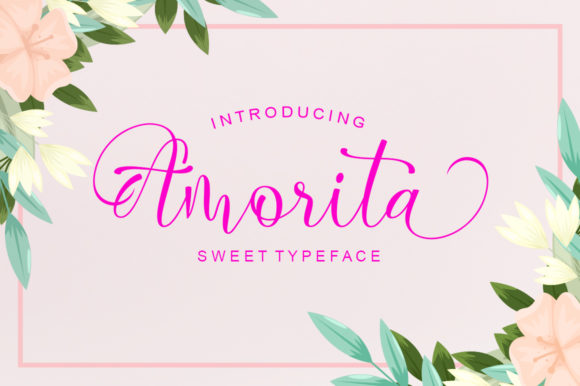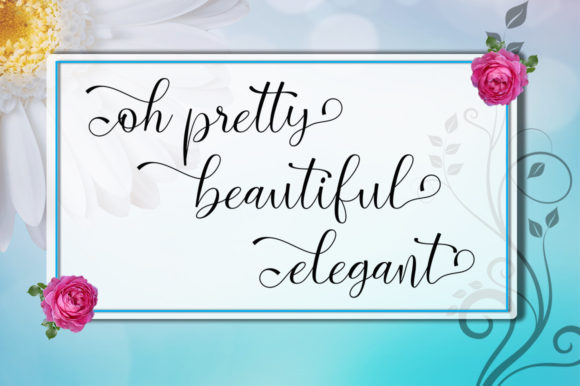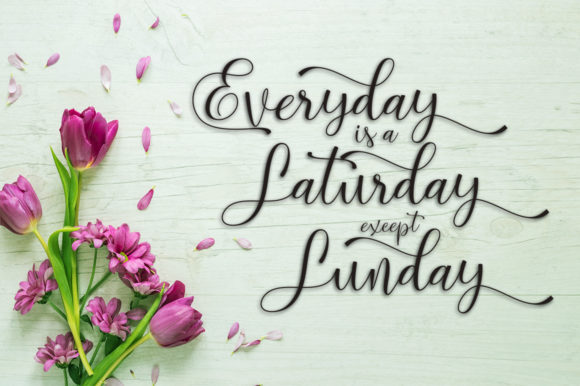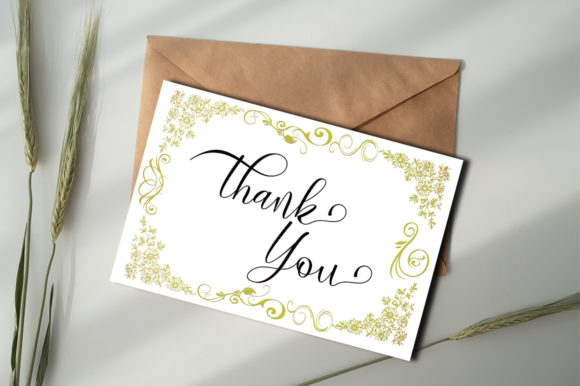
Amorita Font
About Amorita Font
Amorita is a new modern calligraphic script font.
With extra curves & loops, Amorita is guaranteed to make your text stand out – perfect for logos, printed quotes, invitations, cards, product packaging, headers, and whatever your imagination holds.